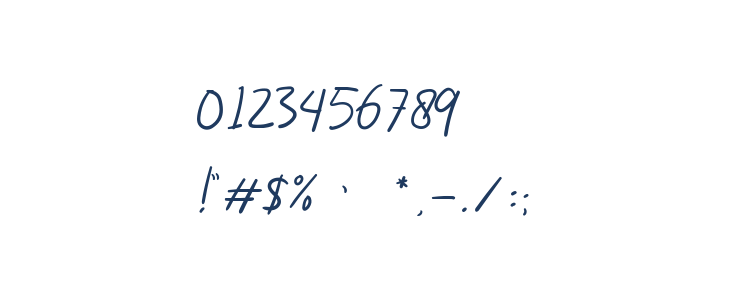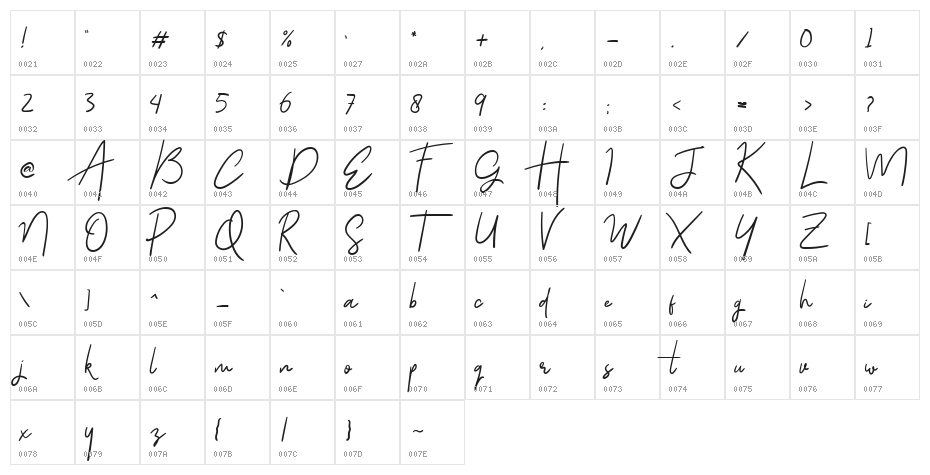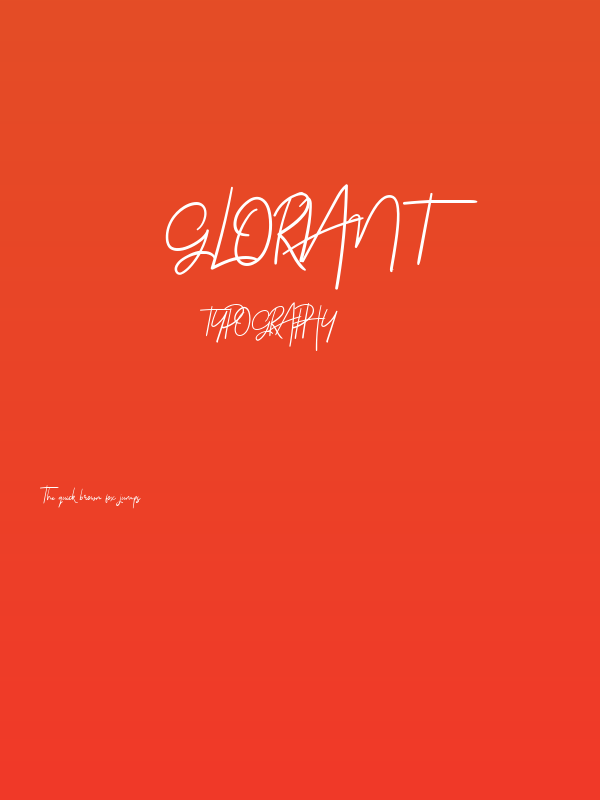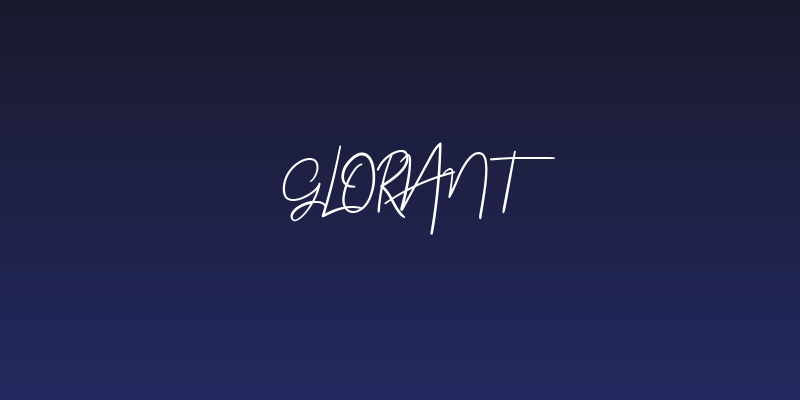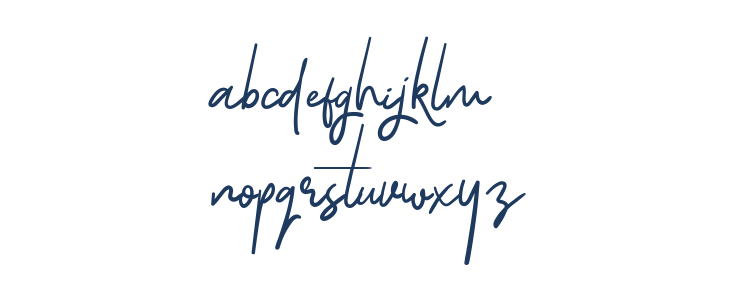
Gloriant Font
Gloriant Description
This font exudes a lively and dynamic energy with its handwritten style. The characters are crafted with a fluid, cursive touch, giving it a personal and informal feel. The uppercase letters are tall and slightly slanted, while the lowercase letters maintain a consistent flow, enhancing readability. Numbers and special characters are integrated seamlessly, maintaining the font's overall aesthetic. The strokes vary in thickness, adding a natural, hand-drawn appearance that is both approachable and stylish.
| Proposed Projects | Ideal for personal branding, creative projects, invitations, and greeting cards. |